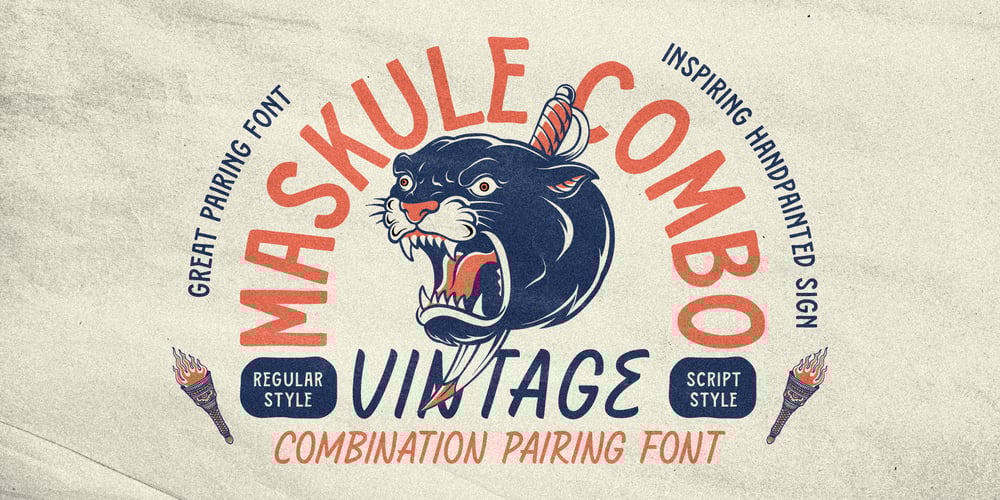
Maskule Font Family was designed by Gha Arizal and published by Invasi Studio. Maskule contains 2 styles and family package options. Maskule Combo is a vintage combination pairing font that captures the essence of hand-painted signs. It features two fonts: Maskule Regular and Script, which work harmoniously together. With its charming and nostalgic style, it’s the perfect choice for creating designs with a vintage theme. Whether you’re working on headings, flyers, greeting cards, product packaging, book covers, printed quotes, logotypes, or album covers, Maskule Combo will add a touch of timeless appeal to your projects.